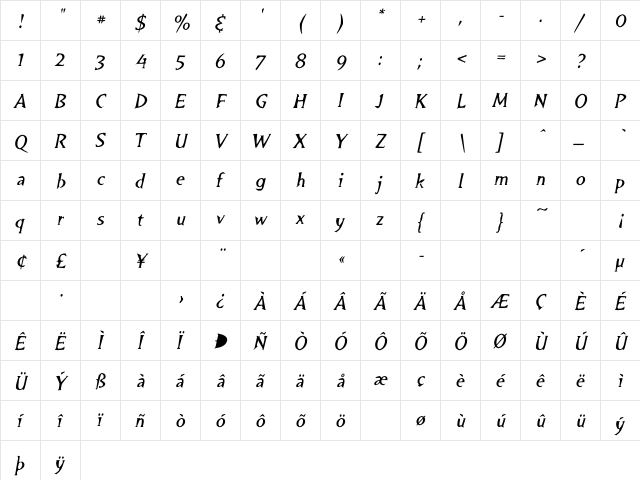
Nightmare in Blend Mode Regular
Design Context for Nightmare in Blend Mode Typeface
Nightmare in Blend Mode takes a measured approach to typography — its balanced proportions and neutral character make it a reliable workhorse for both digital and print work.